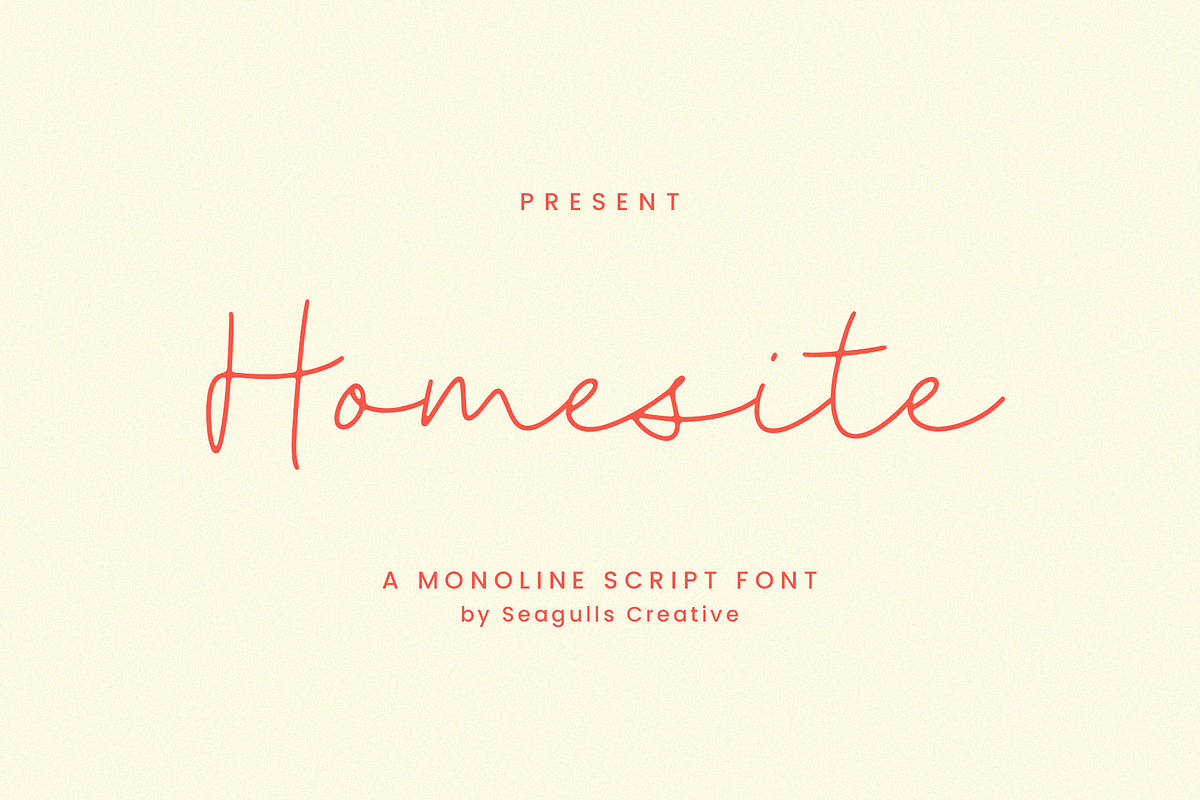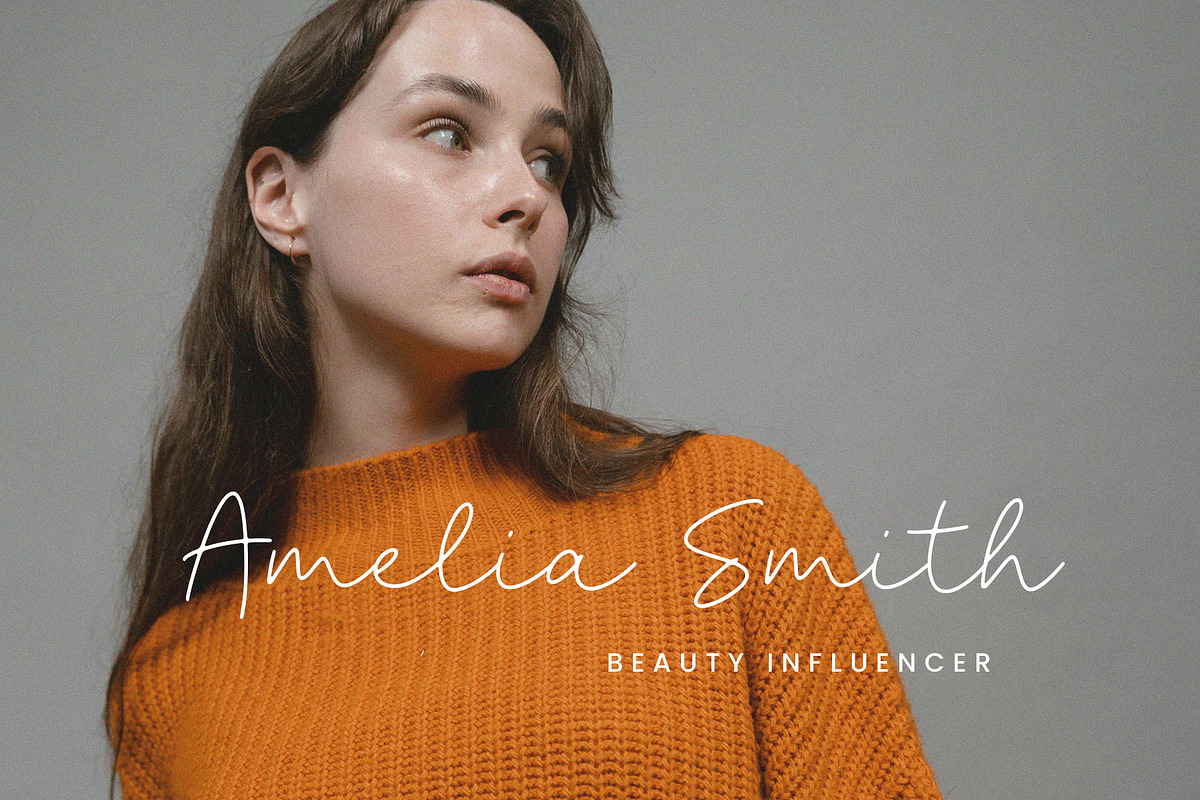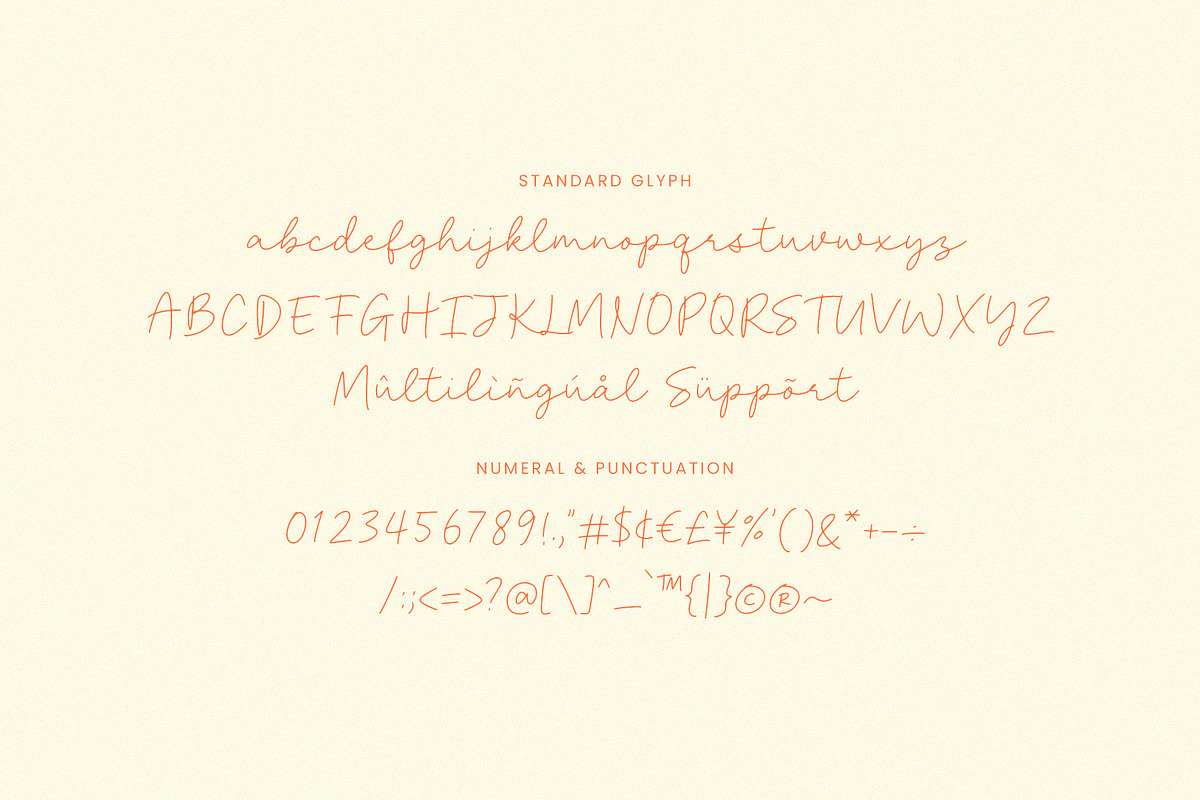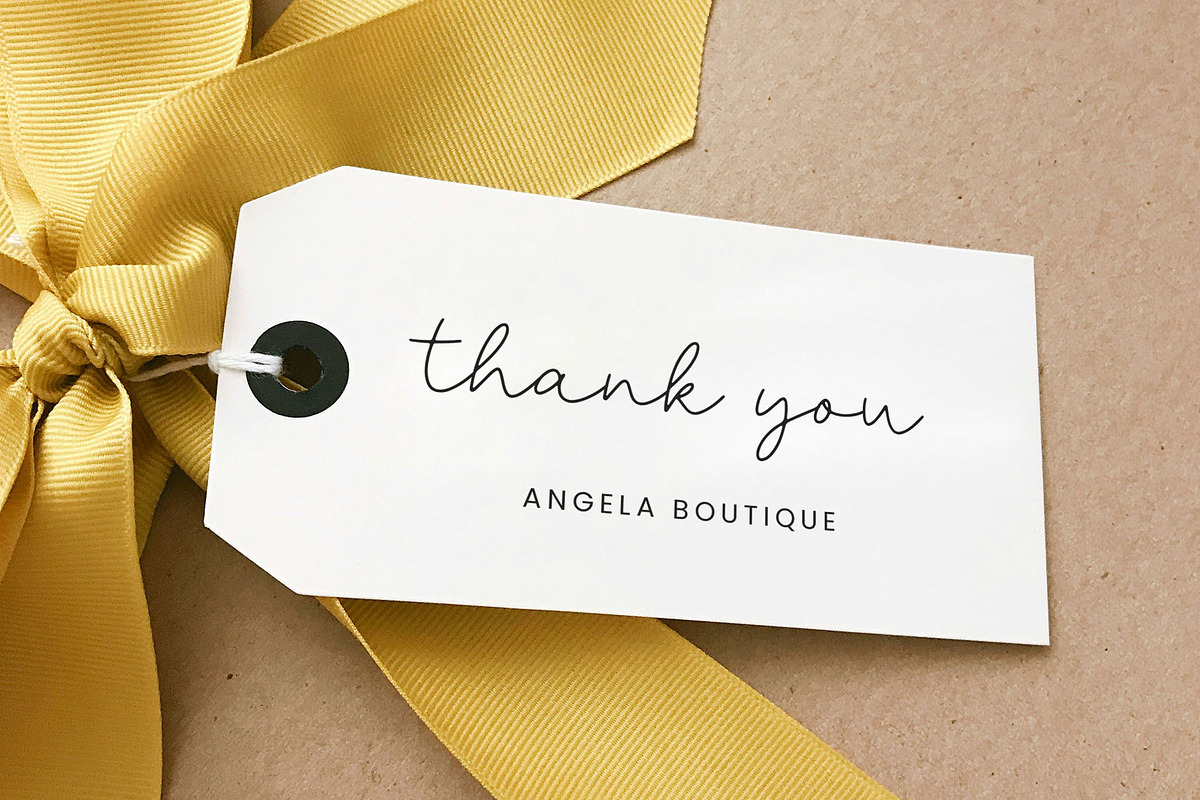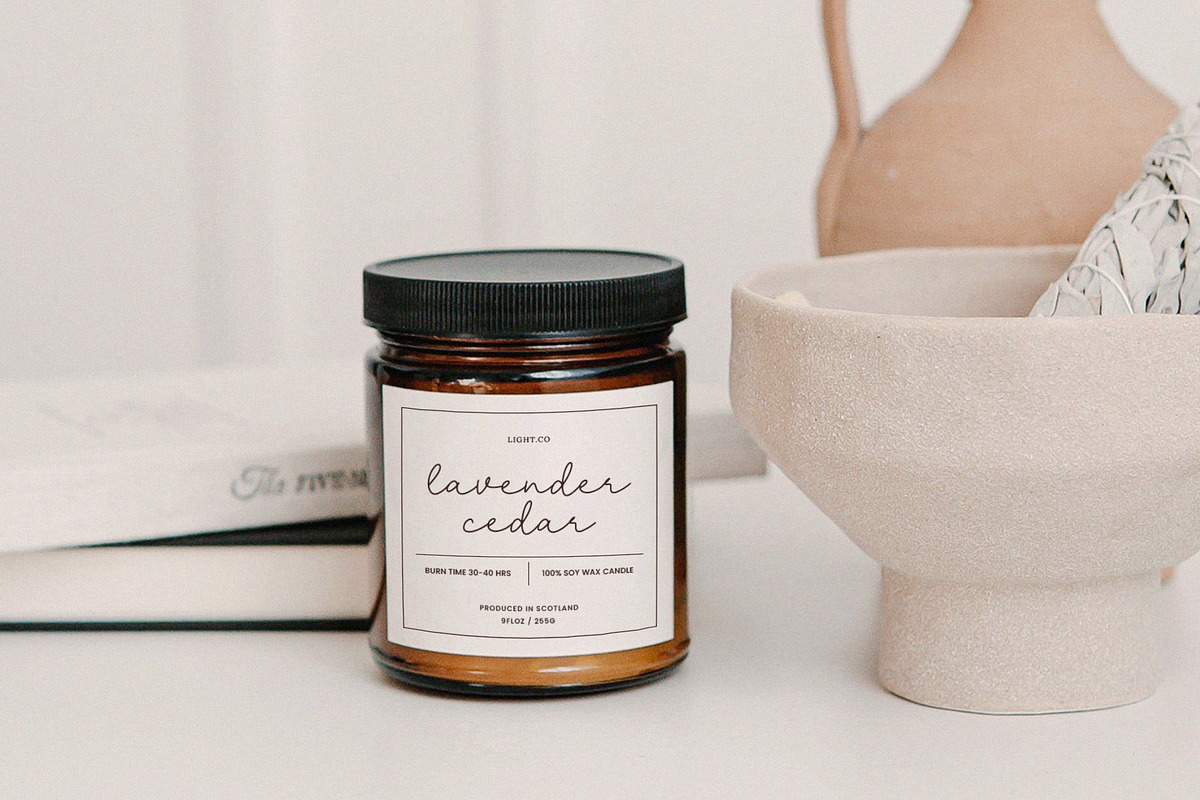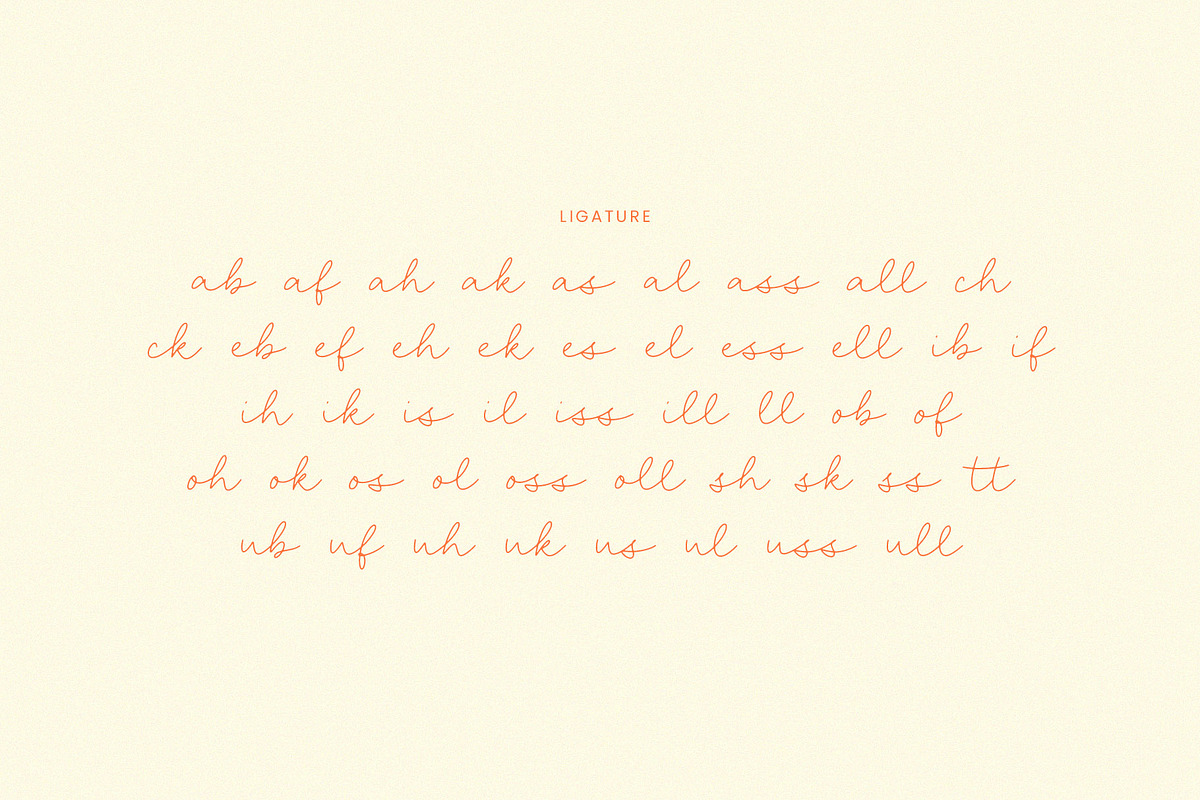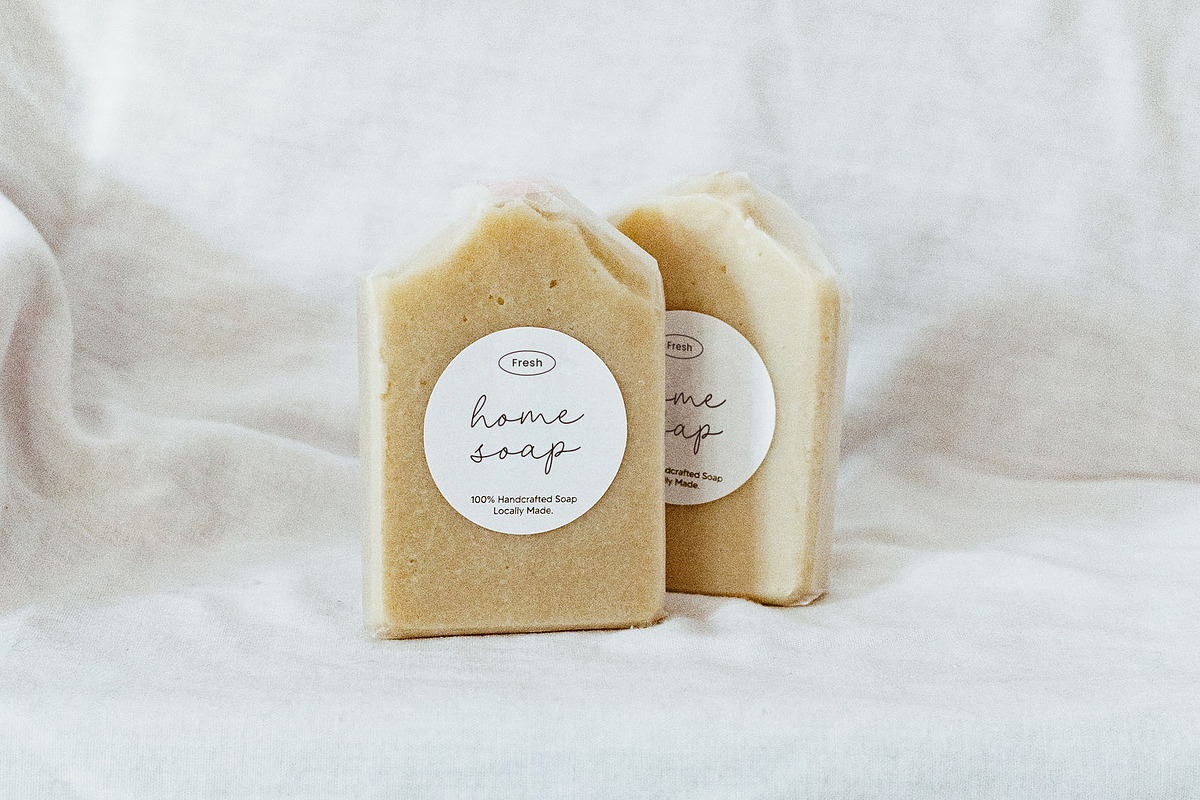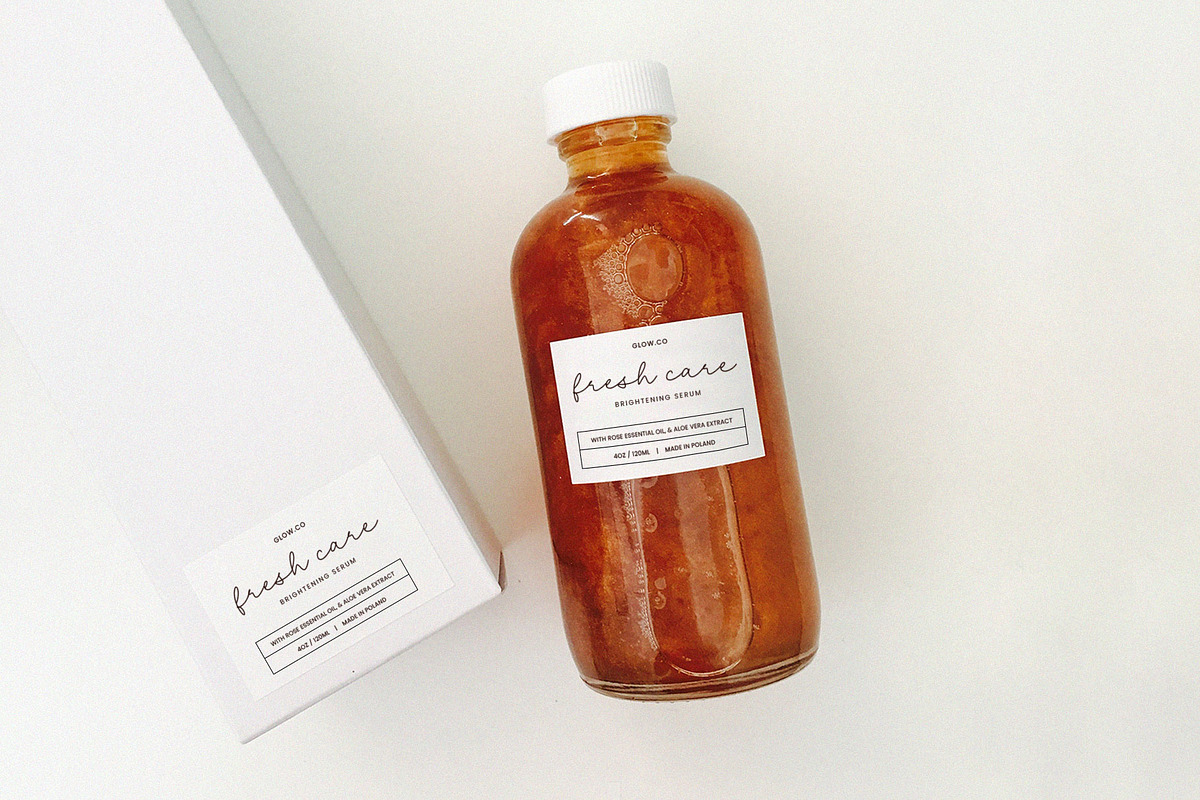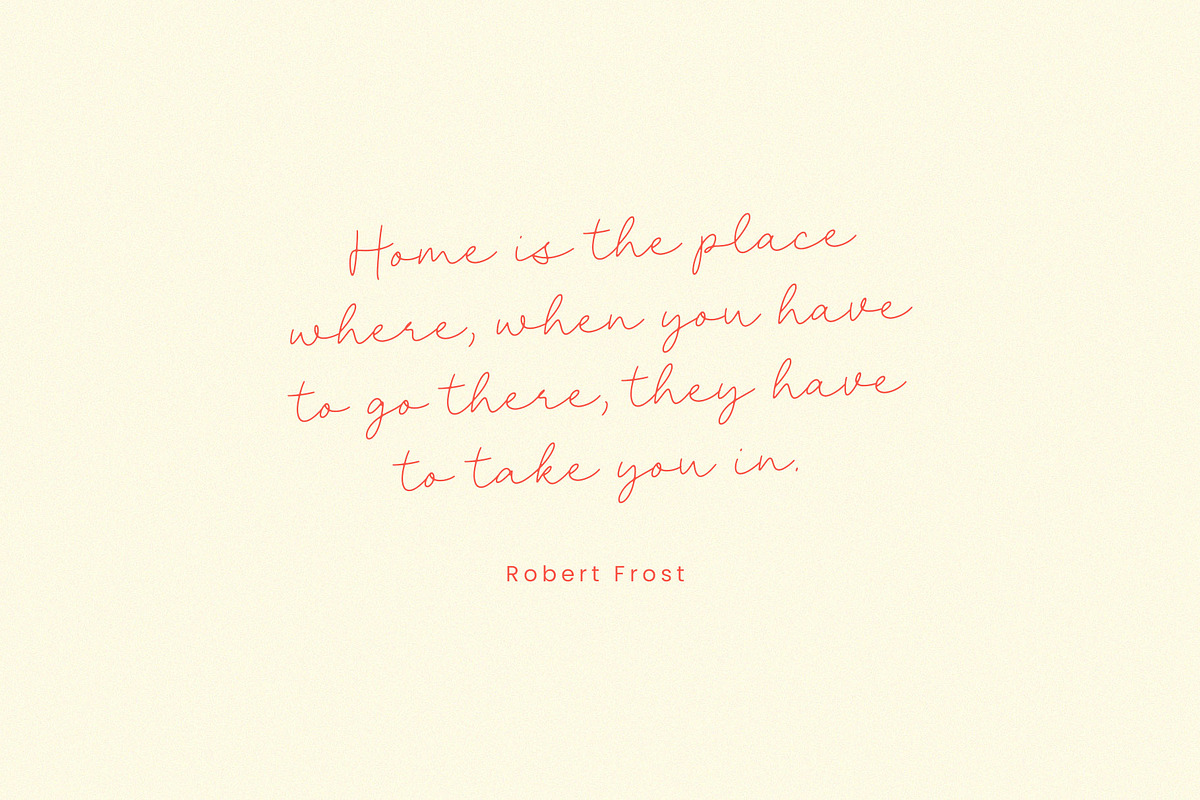
Homesite Monoline Script Font
Hello everyone, I would like to introduce Homesite a monoline handwritten font with simple and minimalist cursive.
Homesite can be used for branding, labels, watermarks, photography, wedding invitations, stationery, social media posts, advertising, signatures, packaging, product design, and more.
- Letters, numbers, symbols, punctuation and ligatures
- Fonts include multilingual support